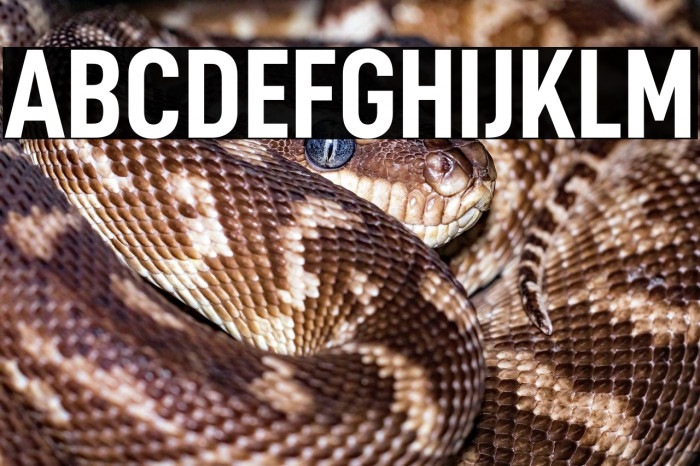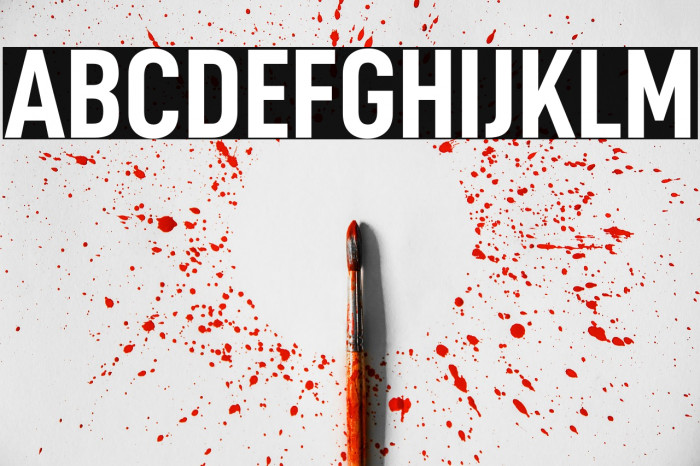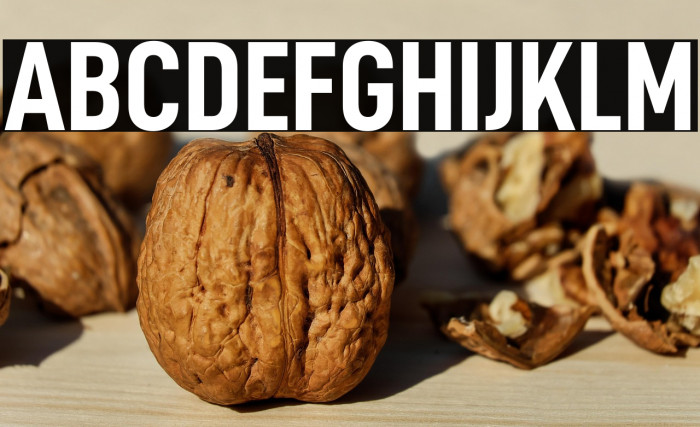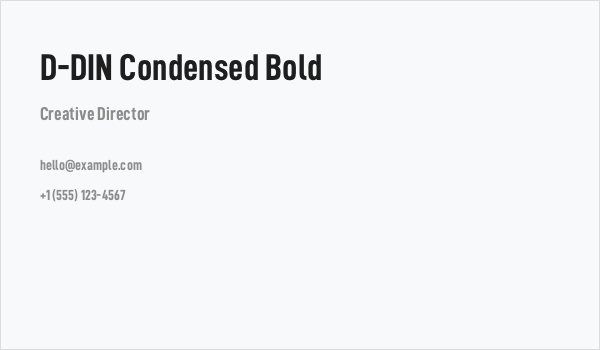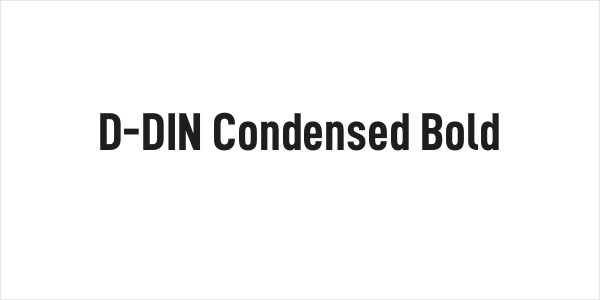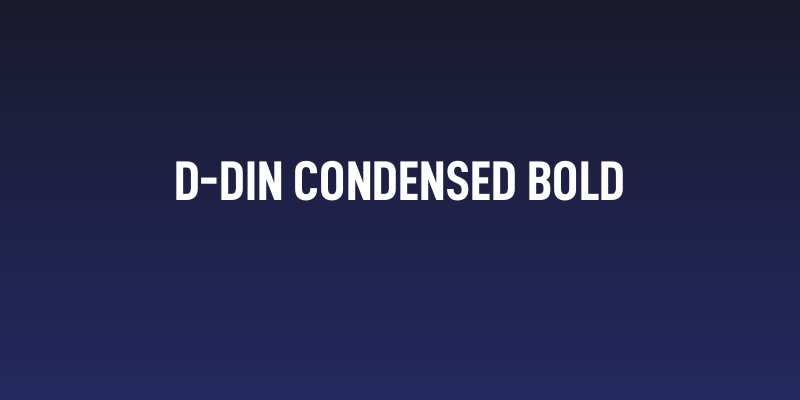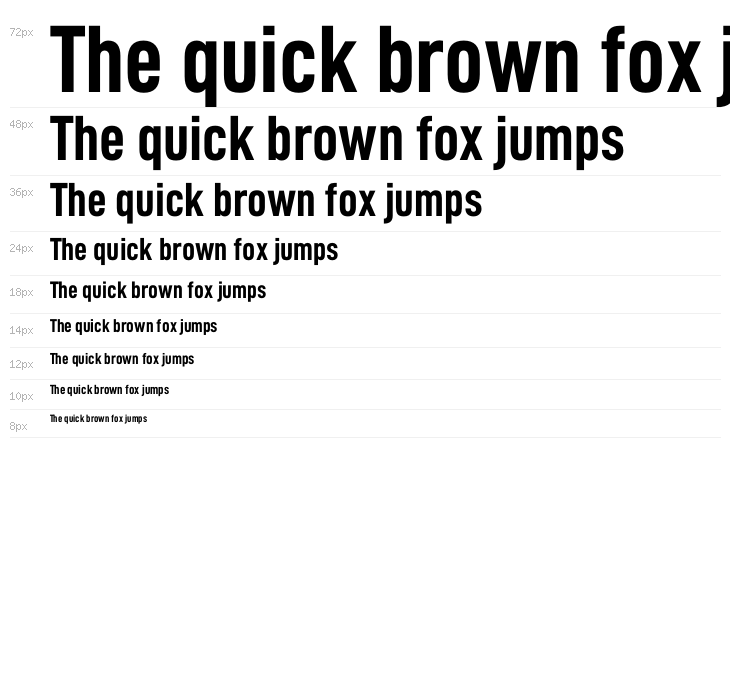
D-DIN Condensed Bold Font
D-DIN Condensed Bold Description
This font features a bold and condensed style, characterized by its strong geometric shapes and uniform stroke widths. The uppercase letters are tall and commanding, while the lowercase letters maintain a consistent height, offering a harmonious balance. The numerals are clear and straightforward, ensuring legibility. Special characters are designed with the same boldness, making them stand out effectively. This font's clean and modern aesthetic makes it versatile for various design applications.
| Use Case | Headlines, Logos, Signage |
| Proposed Projects | Ideal for branding, signage, headlines, and posters where a strong visual impact is needed. |